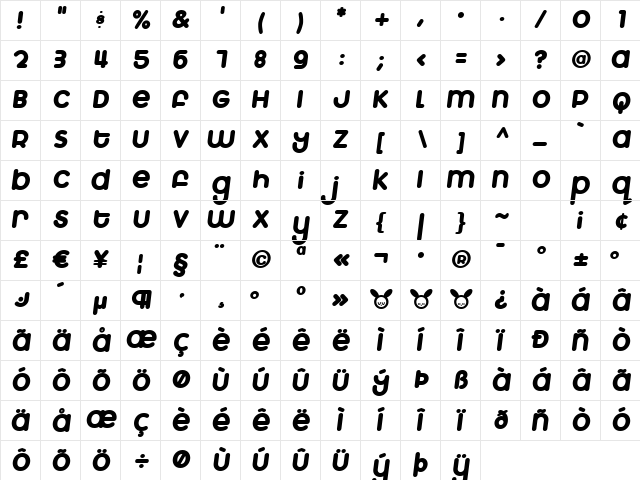
Marshmallow Regular Free Font
Marshmallow Regular
Design Context for Marshmallow
Marshmallow is a composed and adaptable typeface that performs quietly and consistently across a wide range of design contexts.